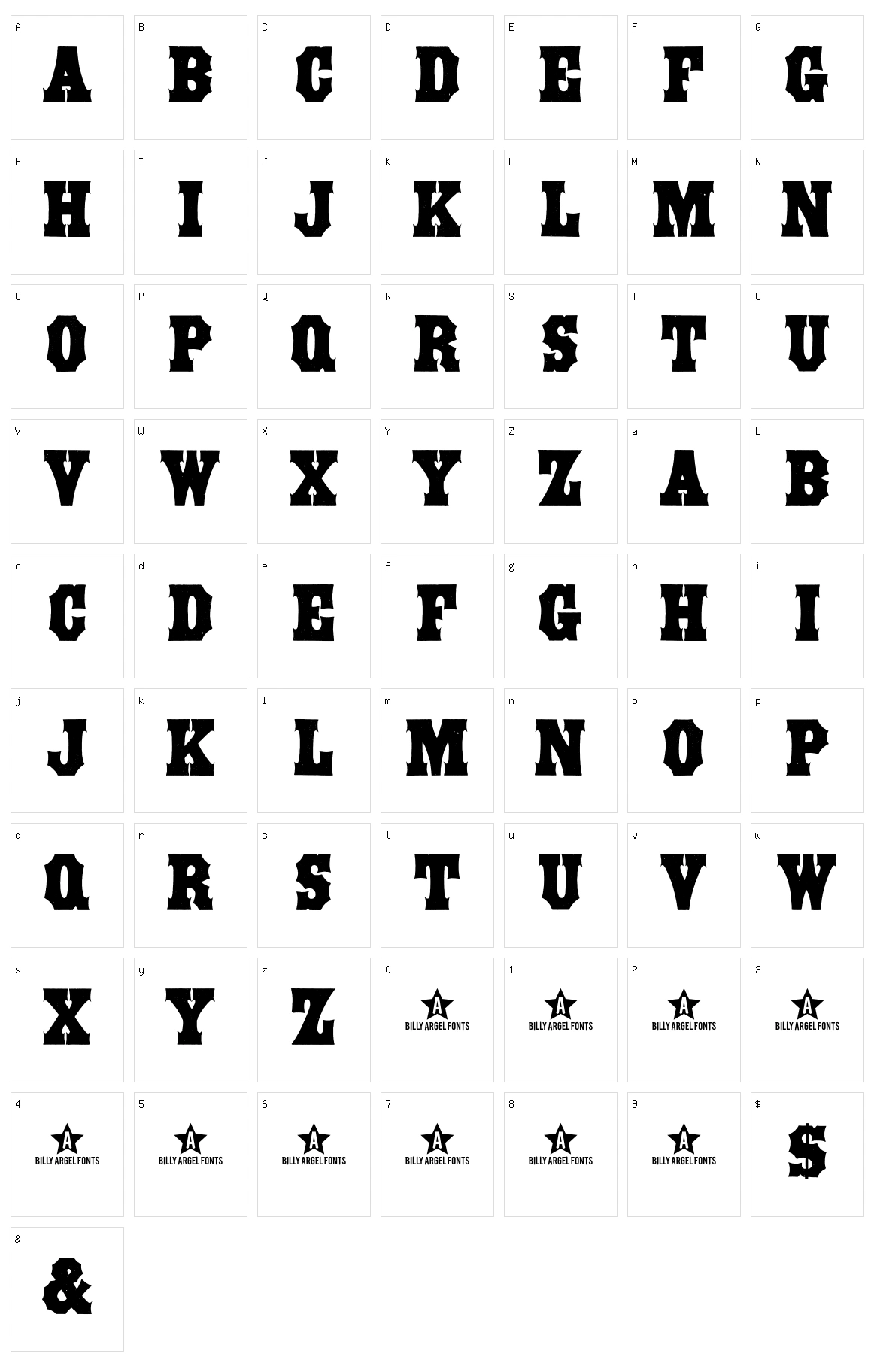
Strongbox
Description: The free font Strongbox is carefully designed by Billy Argel Fonts ®, showcasing a thoughtful balance of creativity and usability and falls under the Western font style. When you download the ZIP file, it contains only 73.92 KB of font files, making it lightweight and quick to download. Please review the license details below to understand permitted usage and distribution rights. If license information is not available, we recommend using this font for personal projects only or contacting the author directly for commercial usage permissions.